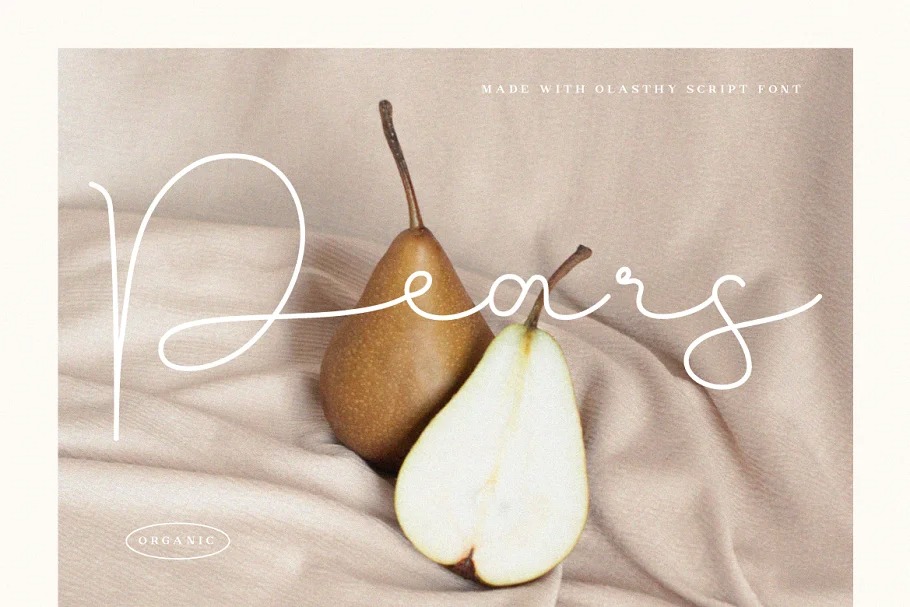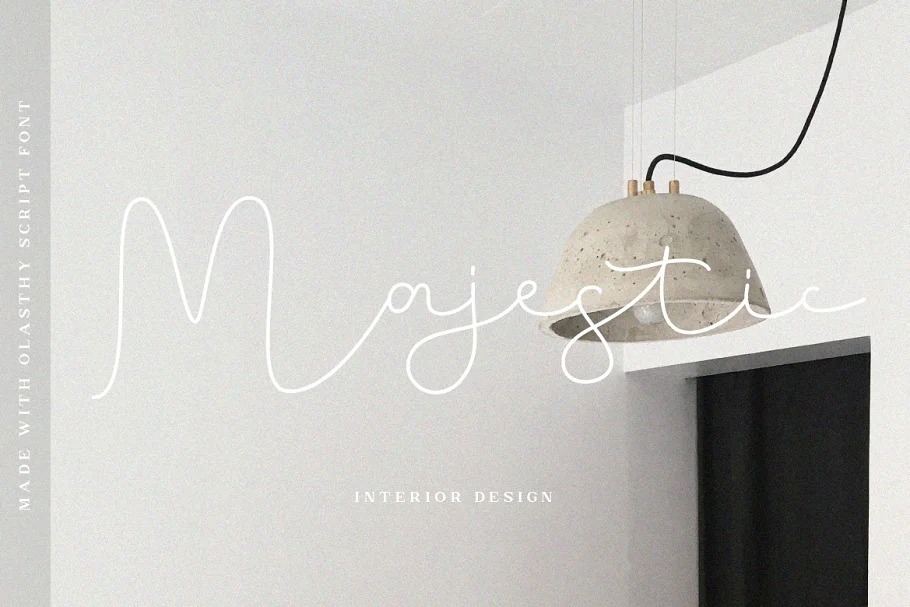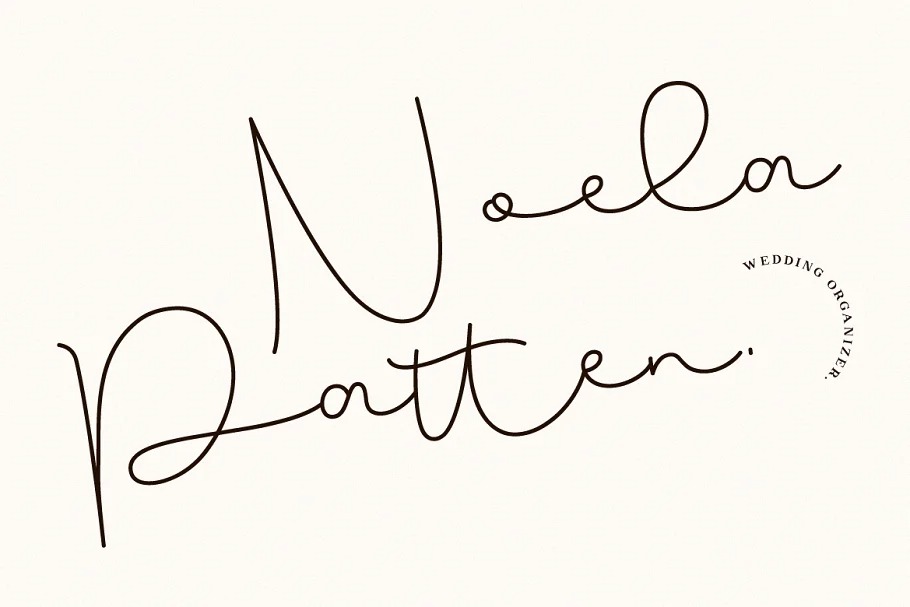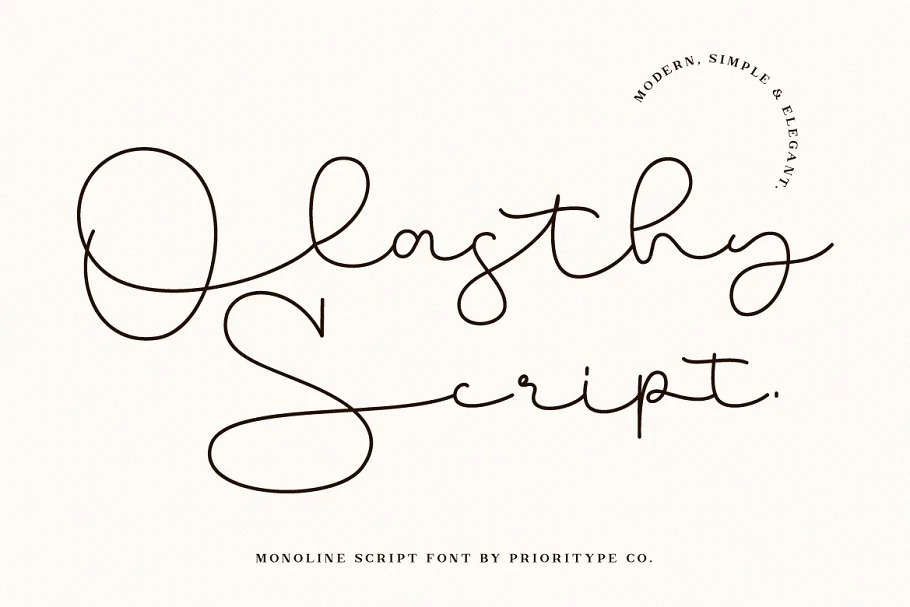
Olasthy Script Font
This is a tall fancy script font crafted & designed by Prioritype Co. With condensed mono-line stroke, fun character with a bit of ligatures. To give you an extra creative work. Simple and modern script fonts are ready for you to play with. You can apply it to branding designs, creative posts, business cards, logos and more.